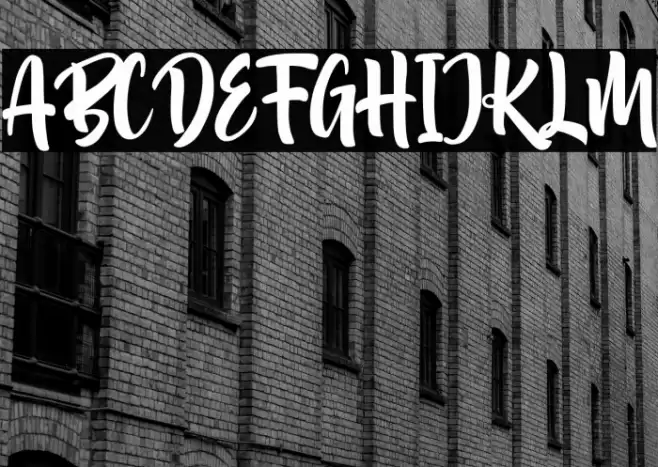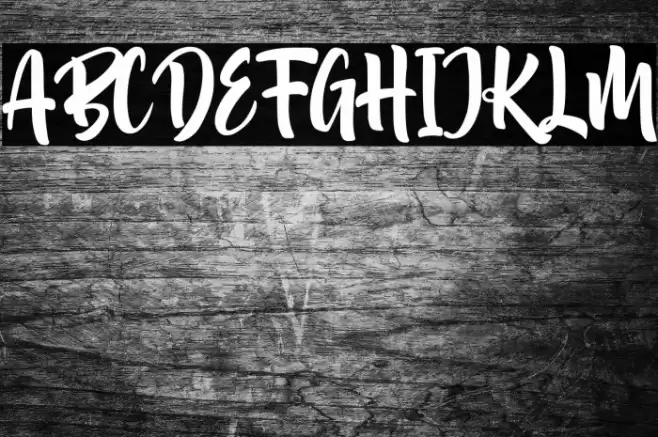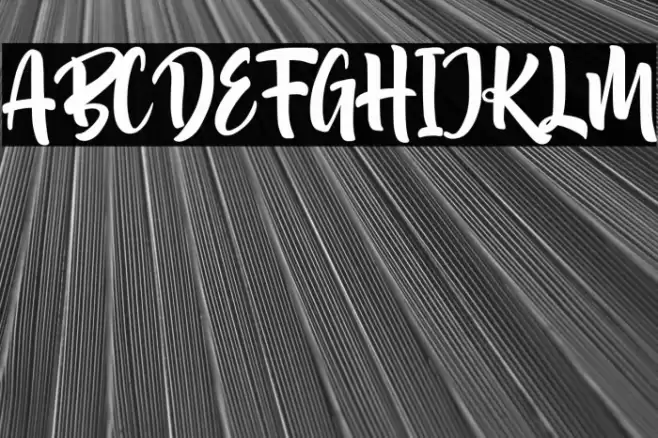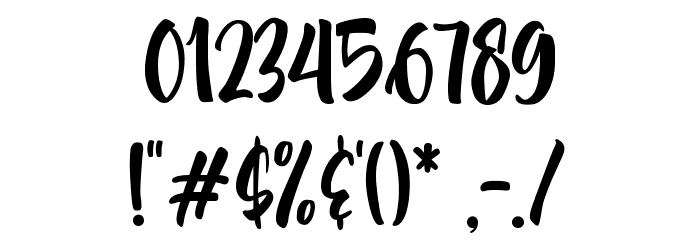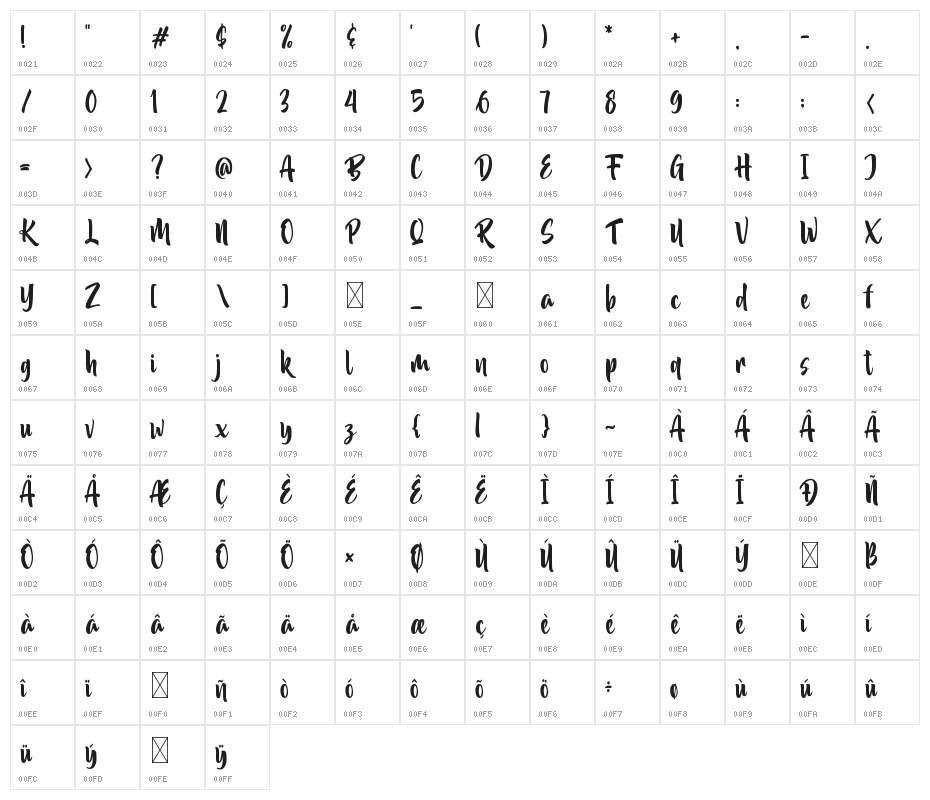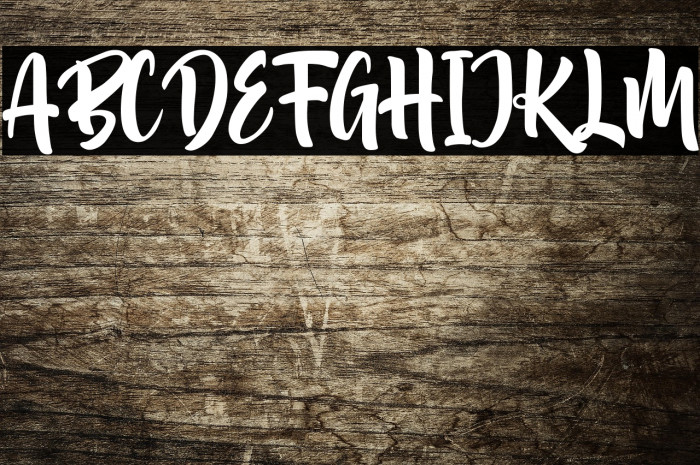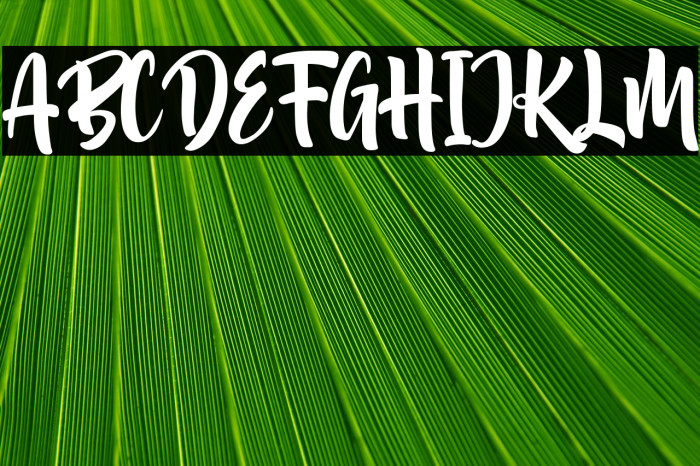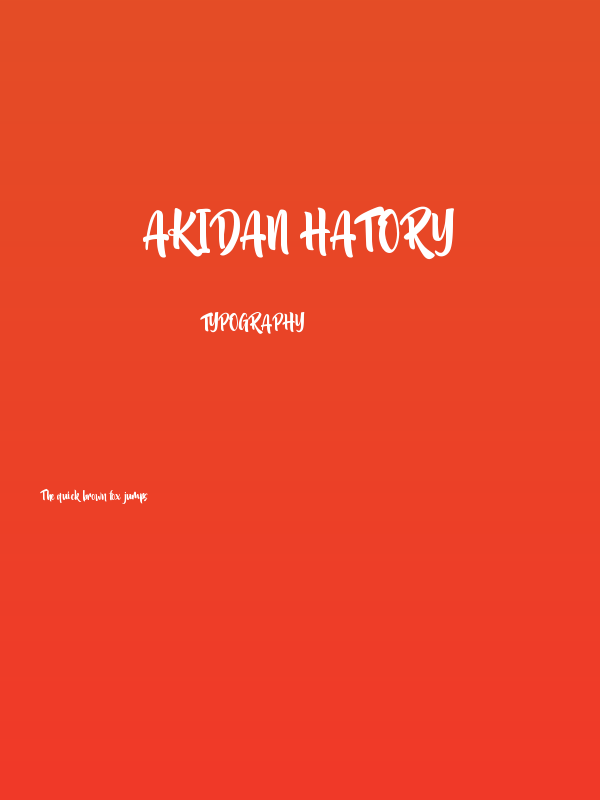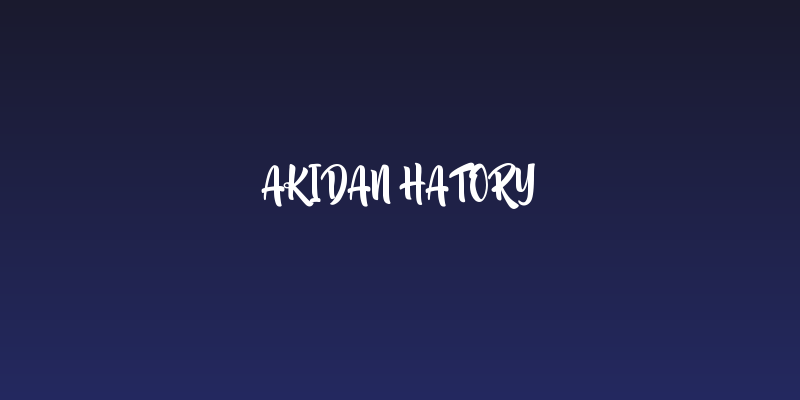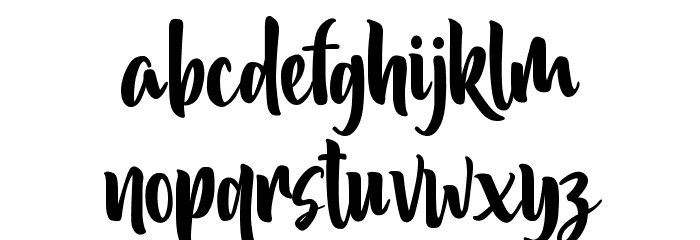
Akidan Hatory Font
Akidan Hatory Description
This font features a bold and expressive handwritten style, characterized by its fluid and dynamic strokes. The letters exhibit a playful yet sophisticated appearance, with varying thickness that adds a sense of movement and energy. The uppercase letters are particularly striking, with their tall and slightly slanted forms, while the lowercase letters maintain a consistent flow. The numbers and special characters complement the overall style, ensuring versatility in various design contexts. This font's unique charm makes it suitable for creative projects that require a personal touch.
A bold, expressive handwritten font with dynamic strokes and playful elegance from Uncategorized fonts.
- Font: Akidan Hatory